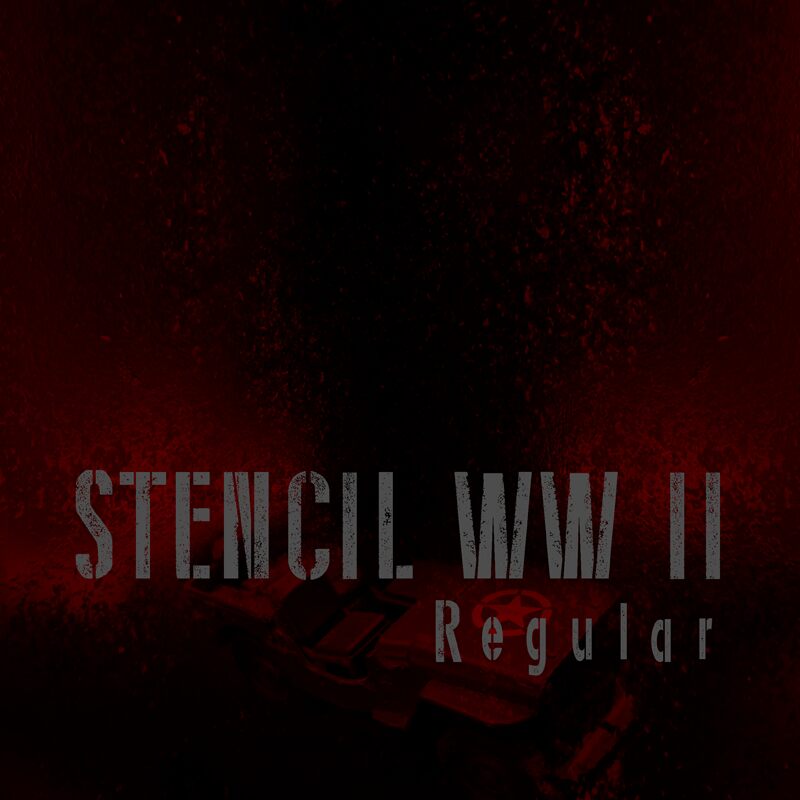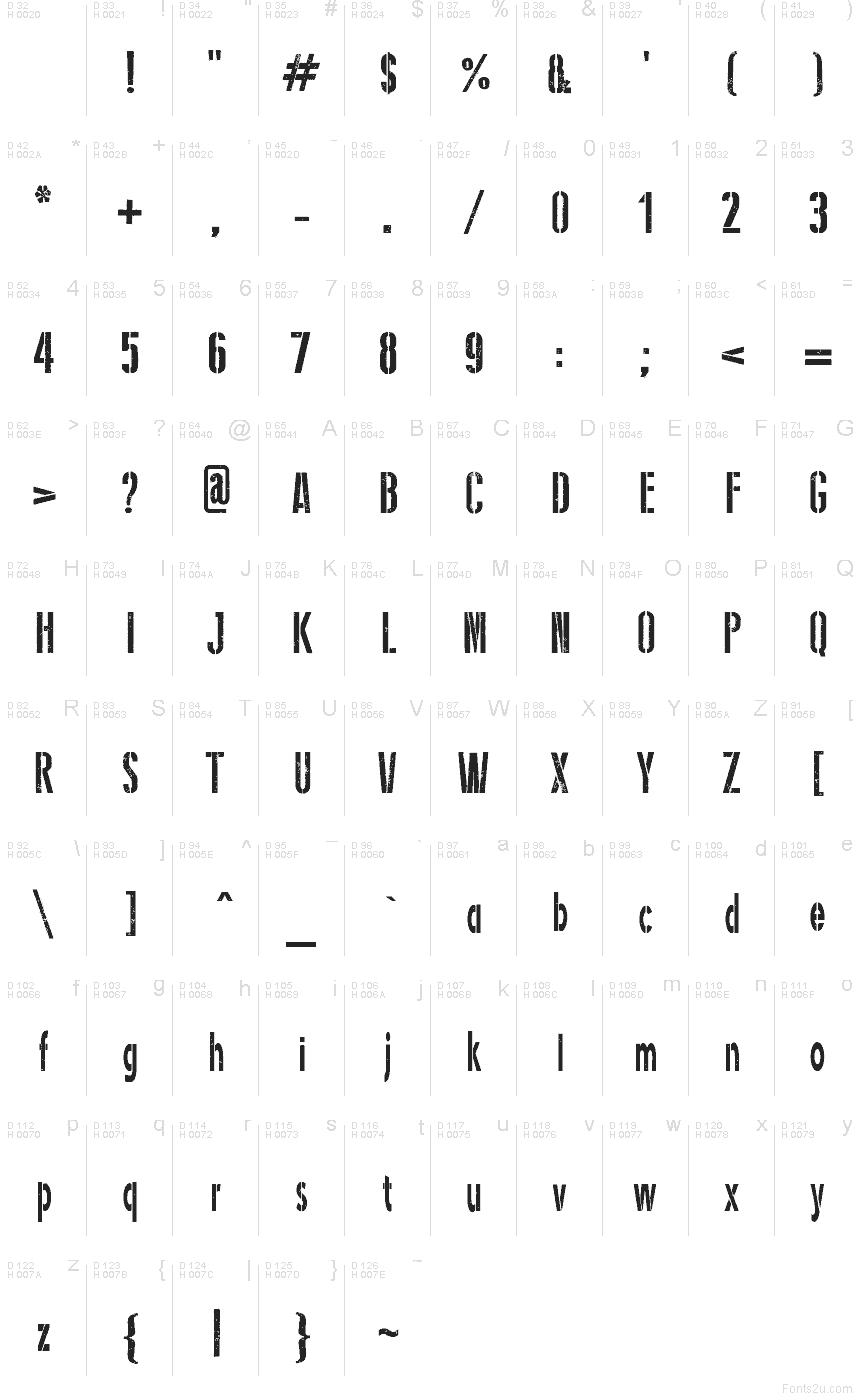
Stencil WW II Regular
Stencil WW II font by Galdino Otten Fonts is a free eroded military stencil display typeface. Heavy vertical strokes, sharp cutouts, and a rough, sandblasted texture give it the feel of weathered cargo crates and metal ammo boxes pulled straight from the front lines. The letters stack tight and bold, creating a strong, commanding wordmark that still feels battered and human rather than sterile or vector-clean.
Using Stencil WW II, you can bring gritty impact to war-themed posters, game titles, historical documentaries, military event flyers, rugged apparel graphics, and bold packaging. This free font works best in large sizes where the distressed details can breathe and show their character. For a simple pairing, set headlines in Stencil WW II and support text in a clean, neutral sans to keep layouts readable while the stencil texture does the storytelling.